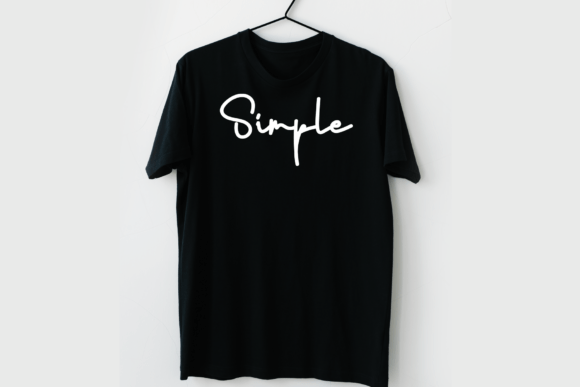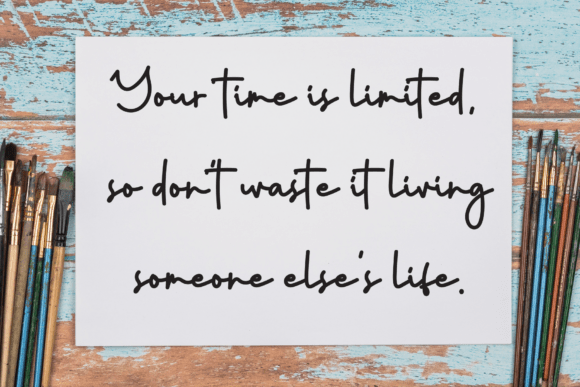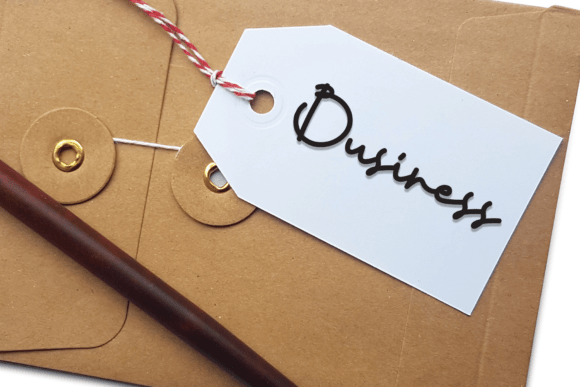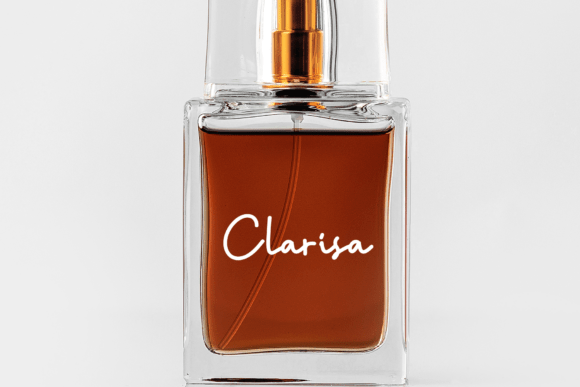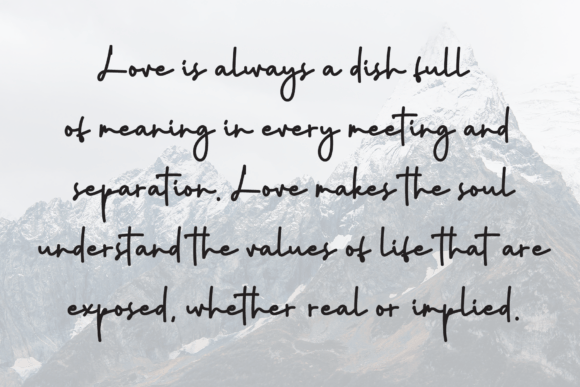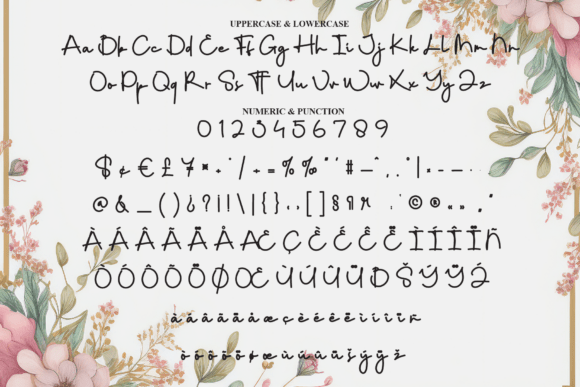
Introduction to Hisana Font
Have you ever found yourself pouring your heart and soul into a creative project, only to have it come together with a flourish when the perfect font comes along? That’s exactly what happened to us when we discovered the elegant and expressive Hisana Font. With its effortless beauty, this script font features graceful curves and smooth connections that instantly elevate any design. Whether you’re working on a wedding invitation, a logo, or a social media graphic, Hisana Font brings a timeless charm that’s hard to resist.
As a valuable resource for designers, Hisana Font offers a high-quality solution for adding a sophisticated, handwritten feel to your creative projects. Its versatility makes it perfect for a wide range of applications, from romantic designs to refined branding projects. And the best part? You can download it for free, making it a must-have in your design arsenal.
Key Features of Hisana Font
- High-quality, professional design resource ideal for creative projects
- Unique characteristics include a modern, elegant aesthetic and versatile font family
- Perfect for designers, artists, and creatives working on a variety of projects, from branding to publishing
Honest Review: Hisana Font
As a designer, I’m always on the lookout for high-quality design resources to elevate my creative projects. The Hisana Font is one such find that has caught my attention lately.
- ✨ The font has a modern and sleek design aesthetic that’s perfect for contemporary projects.
- ✨ The transparent background option allows for seamless integration with various design elements.
However, I do have a few reservations:
- ⚠️ The font family is relatively small, which may limit its versatility in certain projects.
- ⚠️ Some users may find the font’s weight to be inconsistent across different font sizes.
Overall, the Hisana Font is a solid addition to any designer’s toolkit. Its clean design and transparent background make it an excellent choice for modern creative projects. While it may have some limitations, its strengths far outweigh its weaknesses, making it a worthwhile download for designers seeking a high-quality font resource.
The Hisana Font is a high-quality design resource ideal for creative projects that require a unique and elegant touch. With its transparent background, this font can be easily integrated into various design platforms.
To maximize the impact of the Hisana Font, experiment with different font sizes, colors, and combinations to create a visually appealing design. Also, use the font’s transparent background to create a seamless integration with your design elements.
The Hisana Font is suitable for various design projects, including wedding invitations, social media graphics, and branding materials. Its elegant and sophisticated design makes it an excellent choice for creative professionals and designers.
Is the Hisana Font suitable for large-scale printing?
Yes, the Hisana Font is designed to be high-quality and suitable for large-scale printing. The font’s clear and crisp design ensures that it will print well on various paper types and sizes, making it a great choice for posters, flyers, business cards, and other print materials.